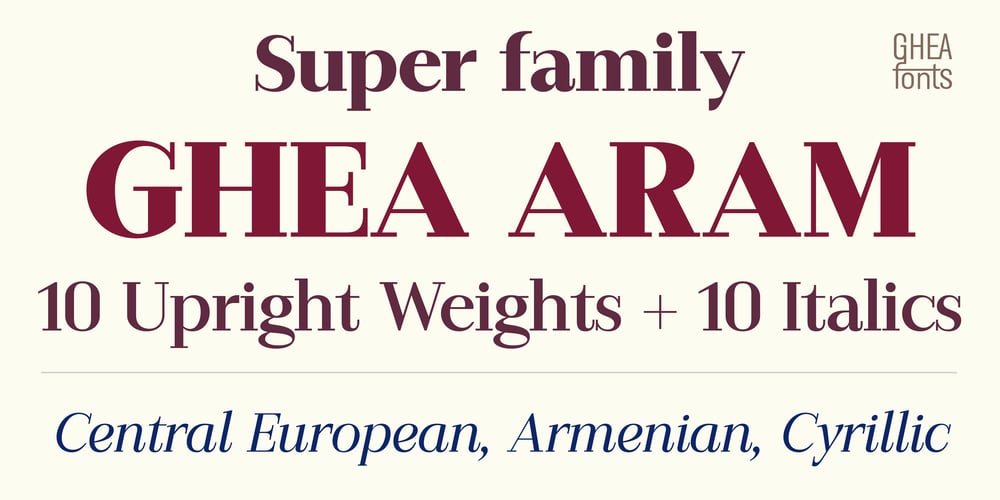
GHEA Aram Font Family was designed by Edik Ghabuzyan and published by Edik Ghabuzyan. GHEA Aram contains 20 styles and family package options. GHEA Aram is a super family font. It has 10 upright weights and their Italics. GHEA Aram supports Central European, Armenian and Cyrillic language systems. The weights from Regular to Bold and their Italics can be used as text fonts. The weights thinner than Regular and thicker than Bold can be used as Display fonts. It is an easily readable two side serif high contrast font but the eyes don’t get tired while reading.